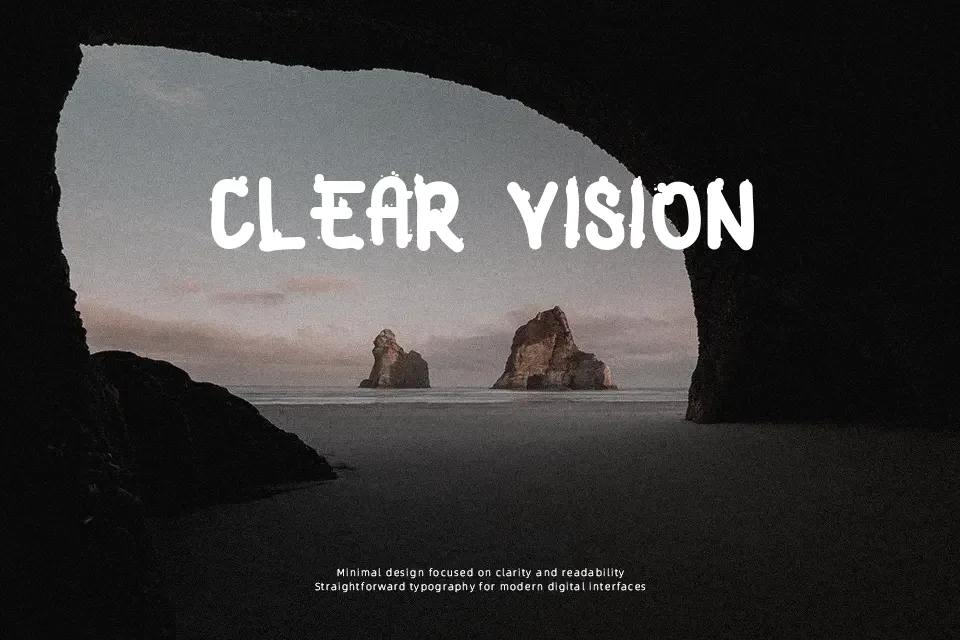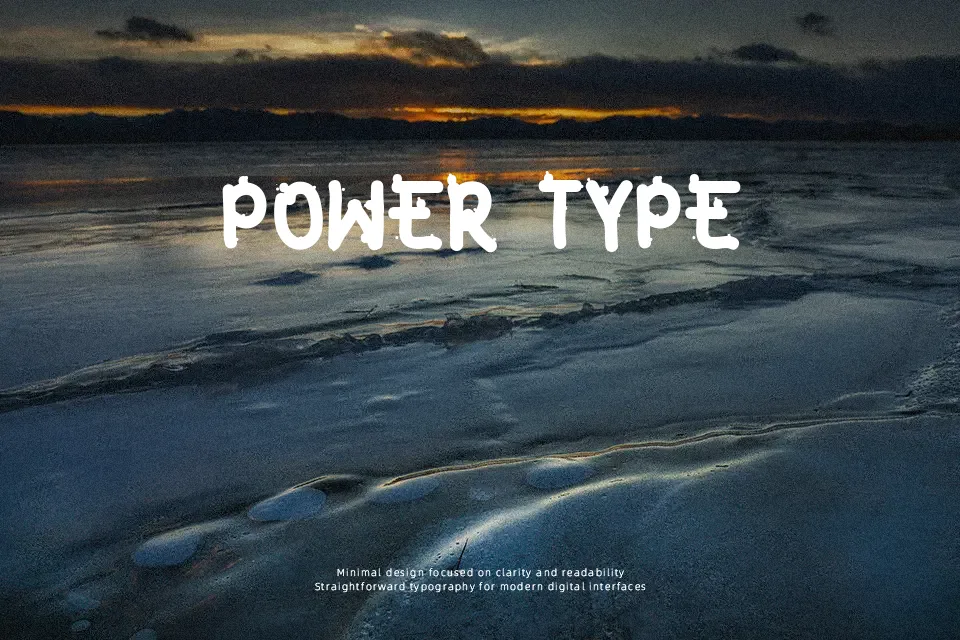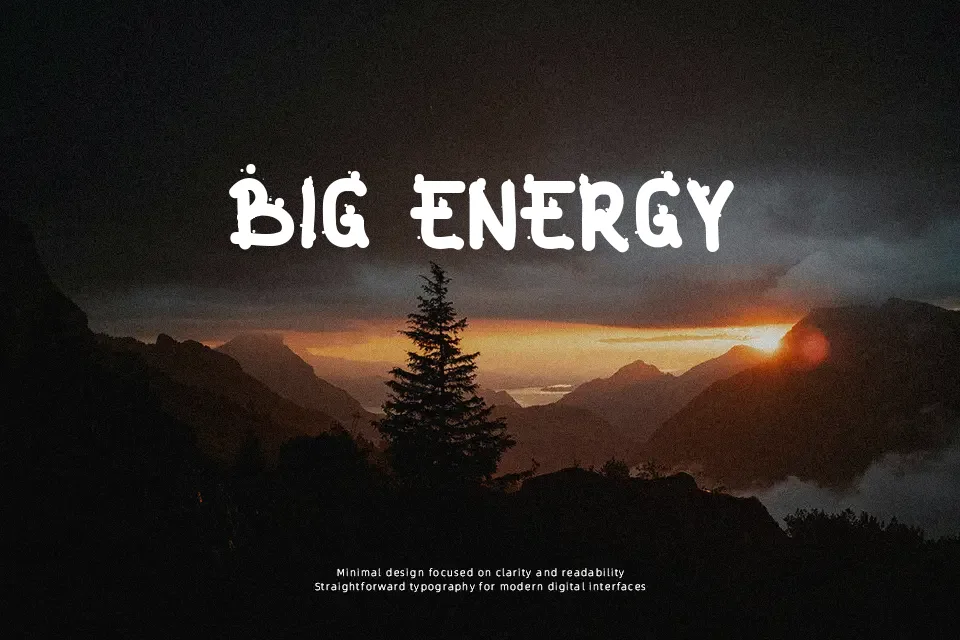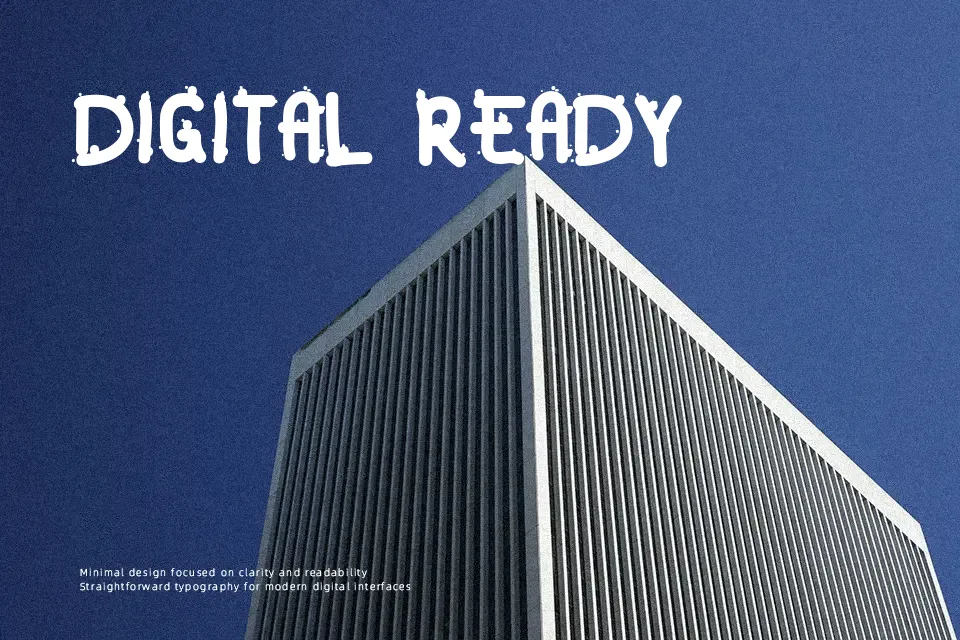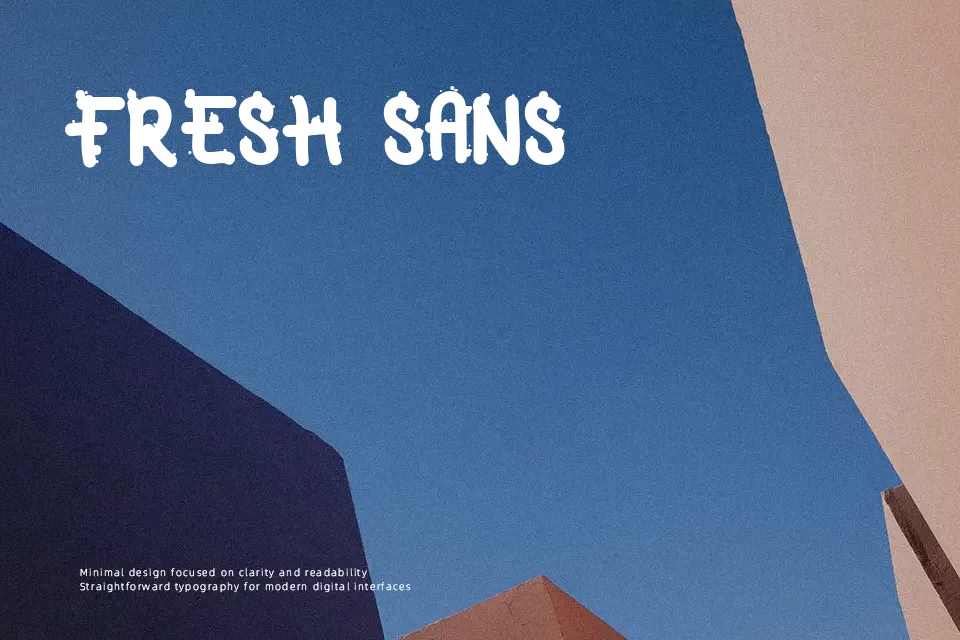
Snowy Day Font
Snowy Day Font uses uneven hand-drawn letterforms with bold, decorative contours and a deliberately informal rhythm. The characters appear broad and highly stylized, giving short words a strong seasonal display presence rather than the even texture expected from a text face. Spacing is best treated generously, since the irregular outlines need room to remain distinct. It works effectively for large titles, cards, and themed graphics where the lettering itself is part of the visual message. At smaller sizes, the detailed edges and varied shapes can become harder to read, so it is not a practical choice for extended copy.
Best For: winter greeting cards,seasonal poster headlines,holiday packaging,festive social media graphics
Perfect for christmas, headline, and holiday, with a artistic and decorative style.